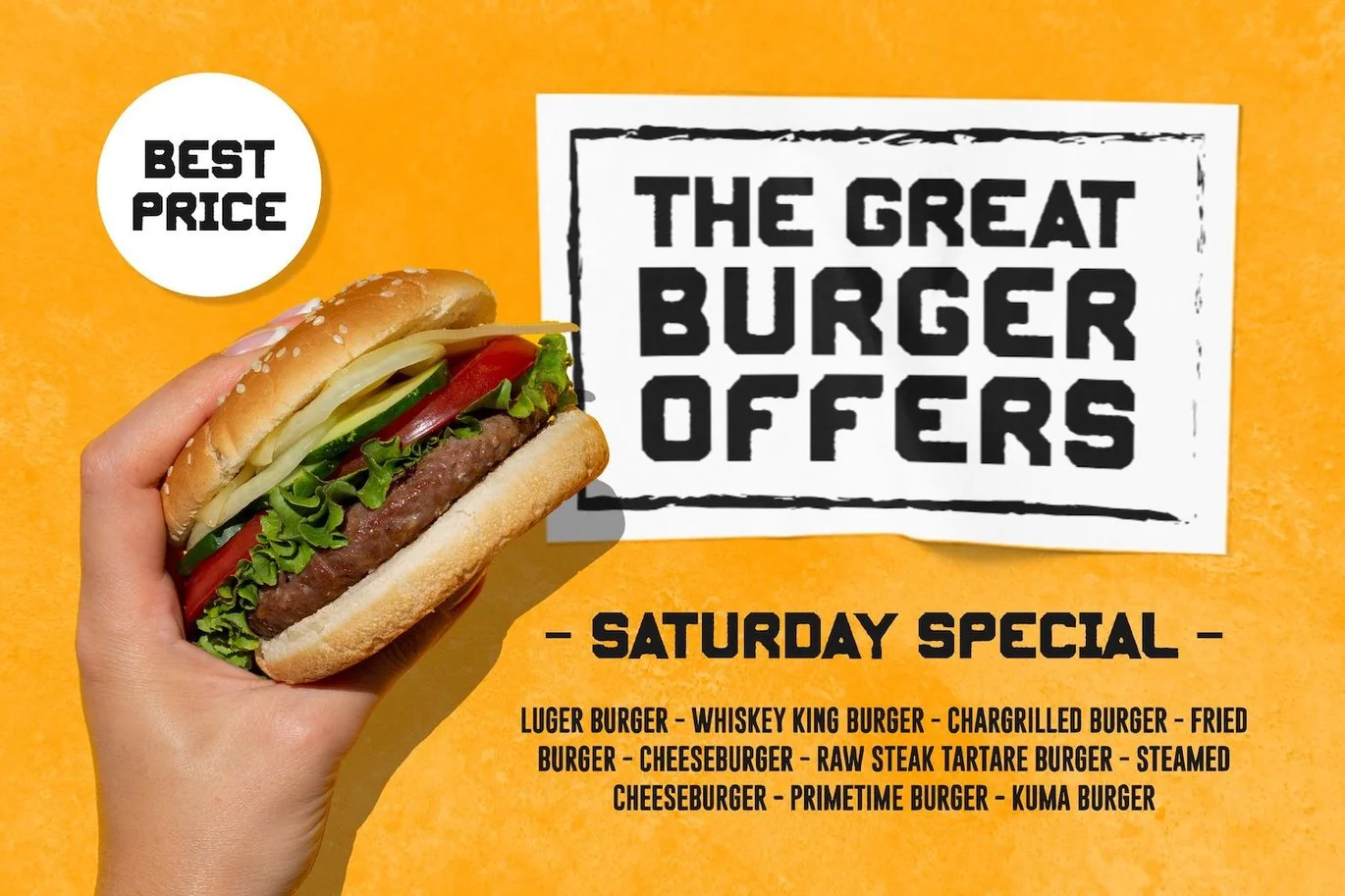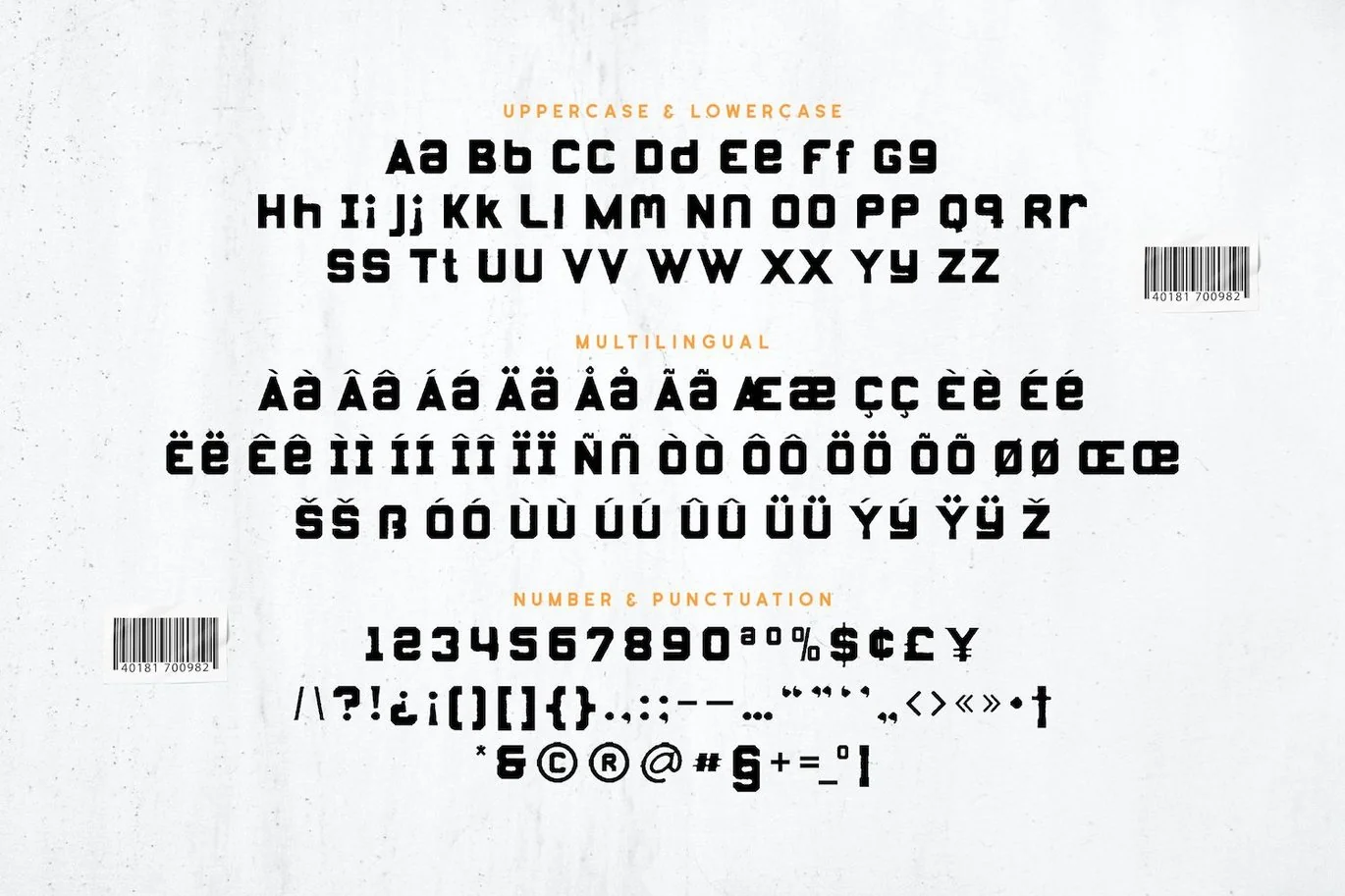
Sabique – Strong Font
Presenting Sabique Font is suitable logo, branding, book, t-shirt, poster, magazine, greetings, headline and etc. Our fonts have Uppercase & Lowercase, Numeral & Punctuation, Multilingual support and Opentype Features. For Amazing designs you can mix with other fonts as a complement.